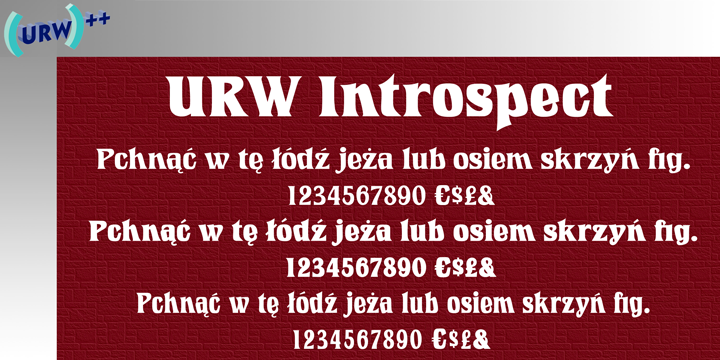
Introspect Font is perfect for mindfulness apps, wellness branding, meditation centers, therapeutic services, personal development books, and contemplative design projects. Its thoughtful character makes it ideal for psychology practices, spiritual retreats, yoga studios, self-help publications, philosophical journals, and any application requiring serene, introspective typography that promotes reflection and inner peace.
Introspect Font is exciting because it embodies the essence of mindful contemplation through carefully considered letterform design, creating a typeface that encourages pause and reflection. Its balanced proportions and gentle curves evoke tranquility and mental clarity, making it perfect for brands focused on personal growth, wellness, and emotional well-being. The font's calming presence helps create environments conducive to introspection and mindful communication.
Introspect Font family includes harmonious weight variations typically featuring Light, Regular, Medium, and Semibold options with flowing italic styles. The family often incorporates soft edges, organic curves, and extended character sets designed for international wellness applications, providing designers with comprehensive tools for creating peaceful, contemplative typographic experiences.